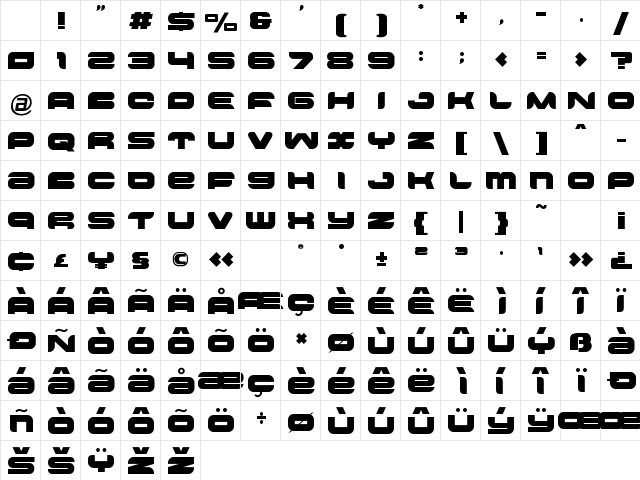
Complete Super Ultra Supra Three Regular glyph index. Displaying only characters natively supported by Super Ultra Supra Three Regular font.
Super Ultra Supra Three is a composed and adaptable typeface that performs quietly and consistently across a wide range of design contexts.